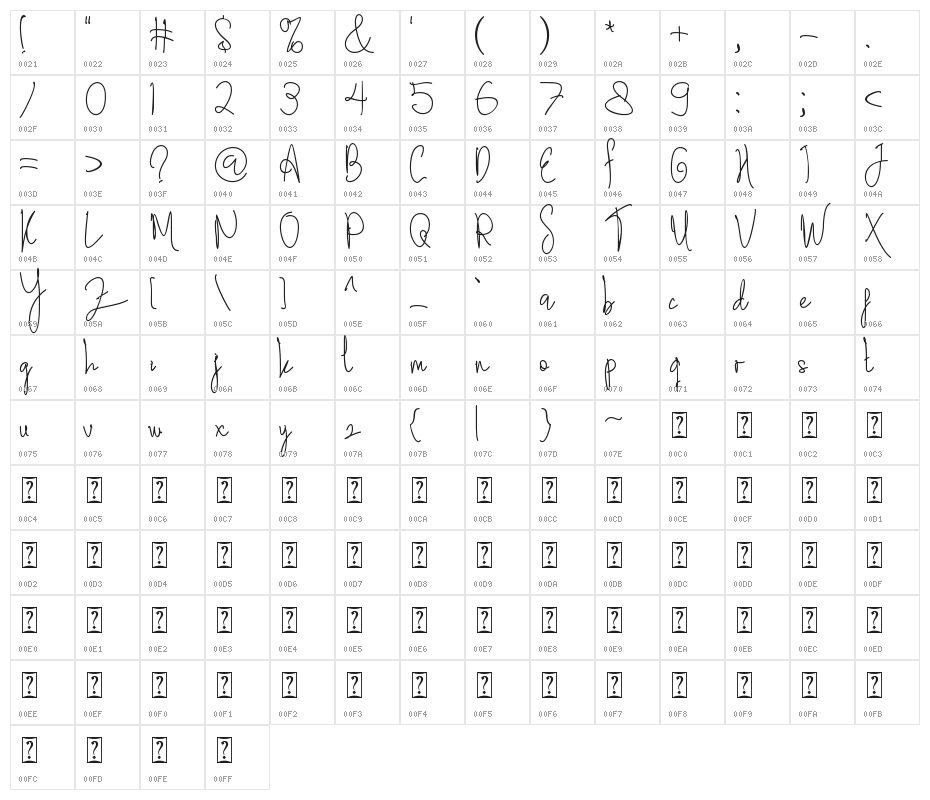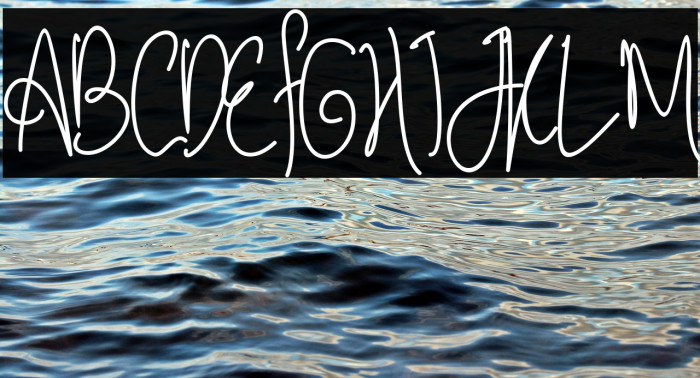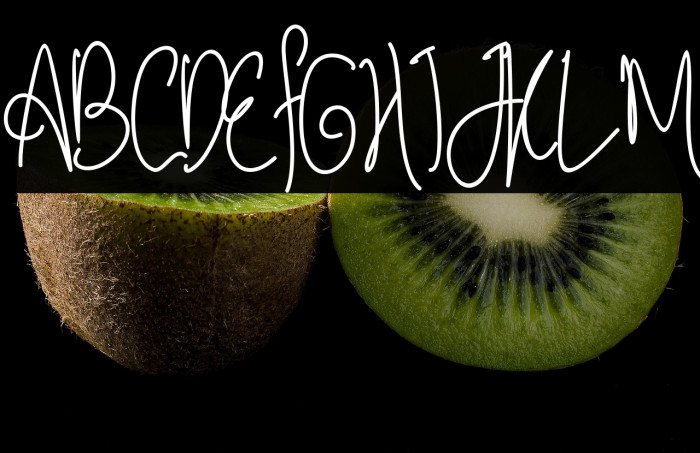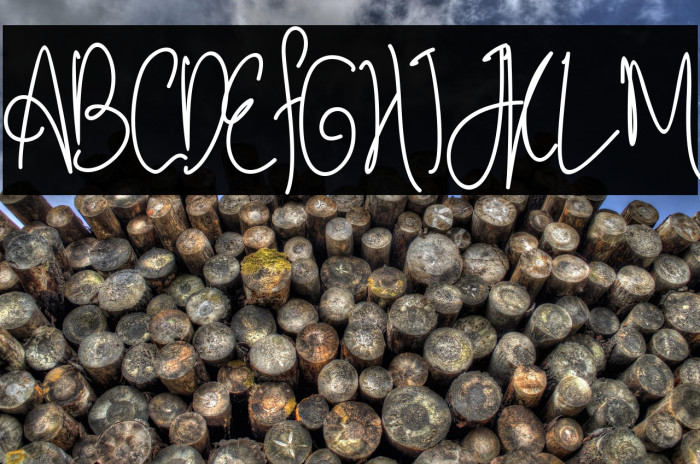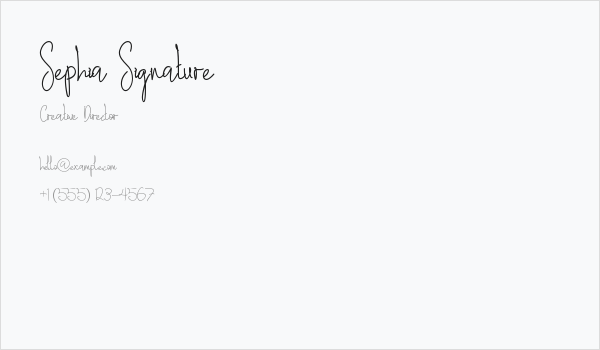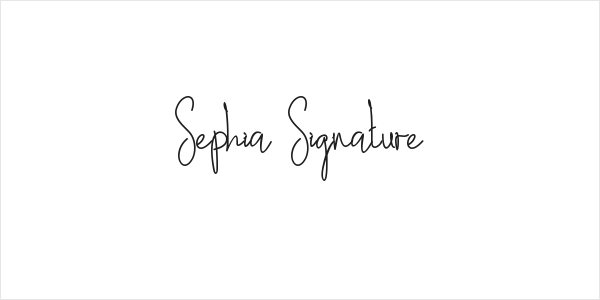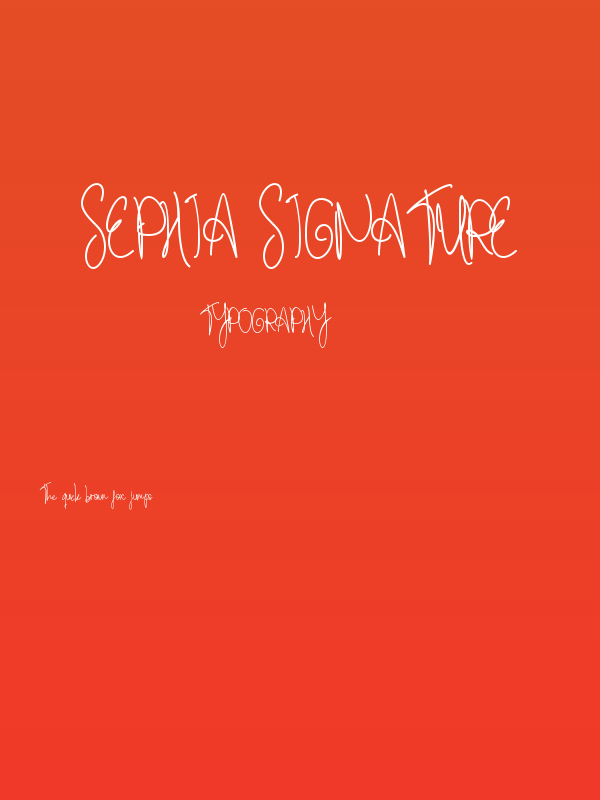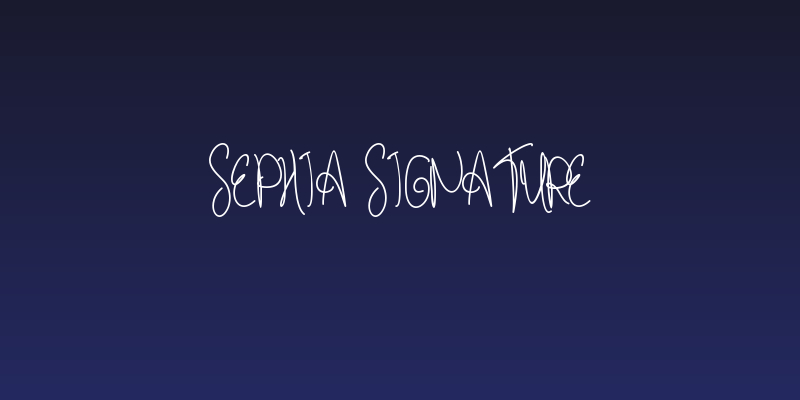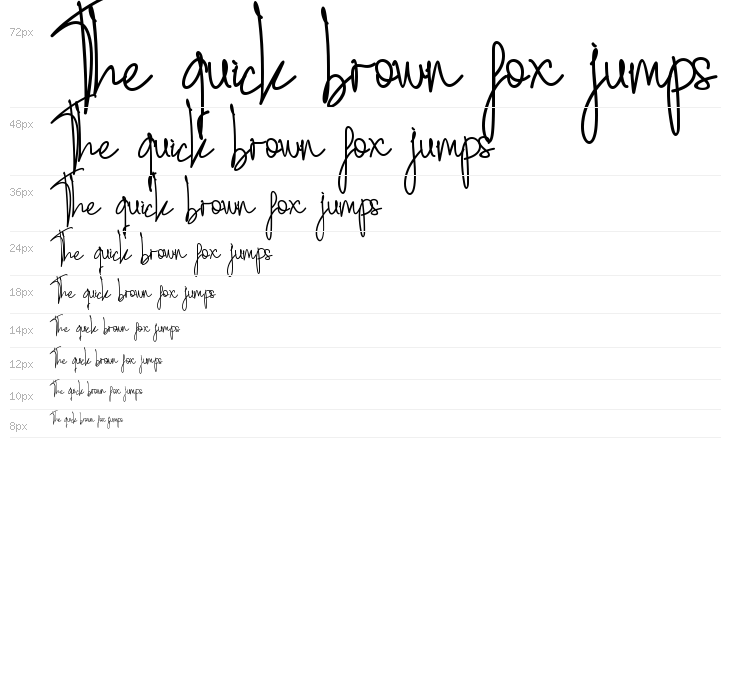
Sephia Signature Font
Sephia Signature Description
This font features an elegant, flowing script style that mimics natural handwriting. The characters are connected with smooth, sweeping lines, giving it a personal and artistic touch. The uppercase letters are tall and slender, while the lowercase letters maintain a consistent flow, enhancing readability. Numbers and special characters are designed with the same fluidity, ensuring a cohesive look across all text. The overall appearance is both sophisticated and approachable, making it suitable for a variety of creative applications.
| Overall Style | Elegant, Artistic |
| Use Case | Logos, Invitations, Personal branding |
| Proposed Projects | Ideal for wedding invitations, personal branding, greeting cards, and artistic projects. |